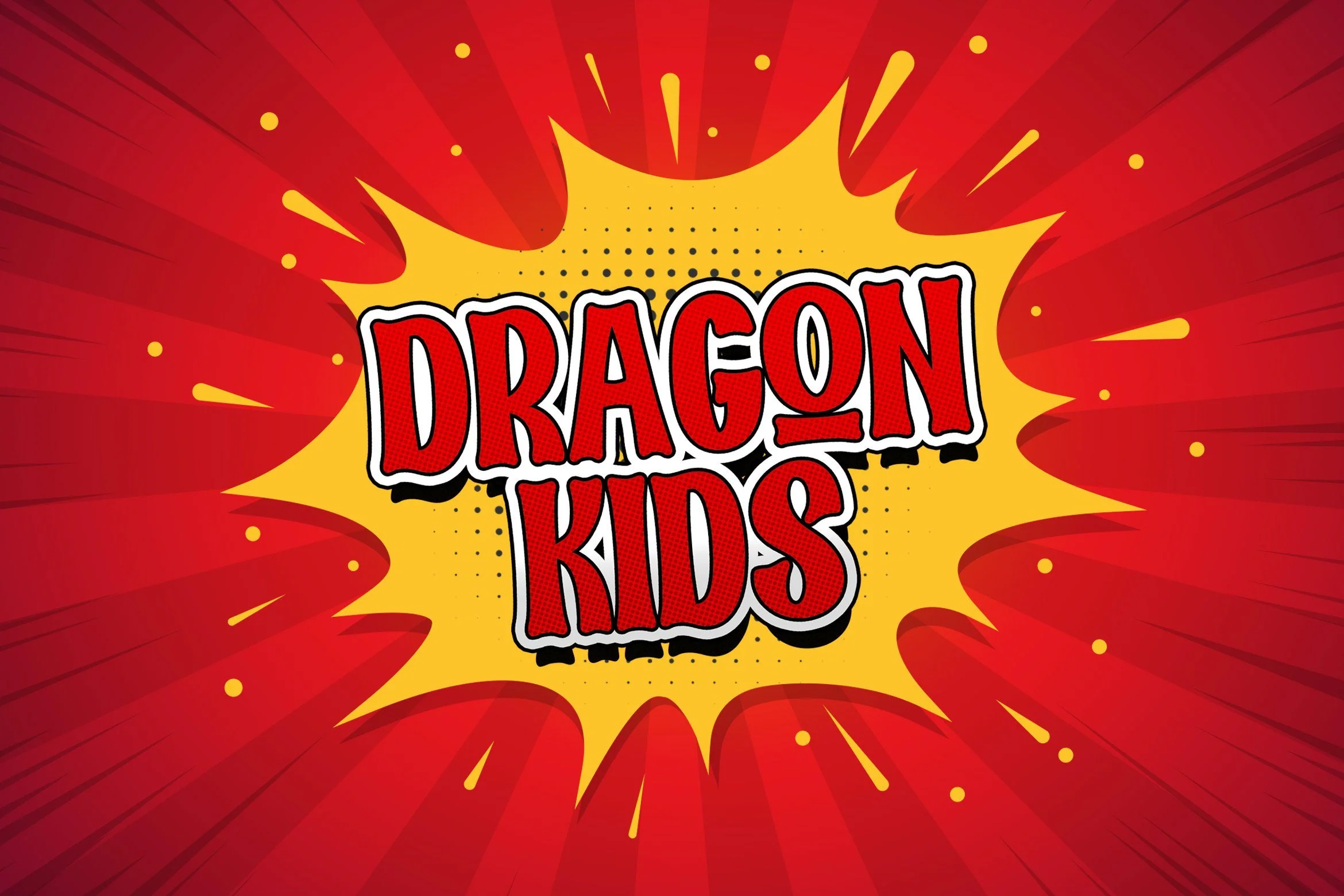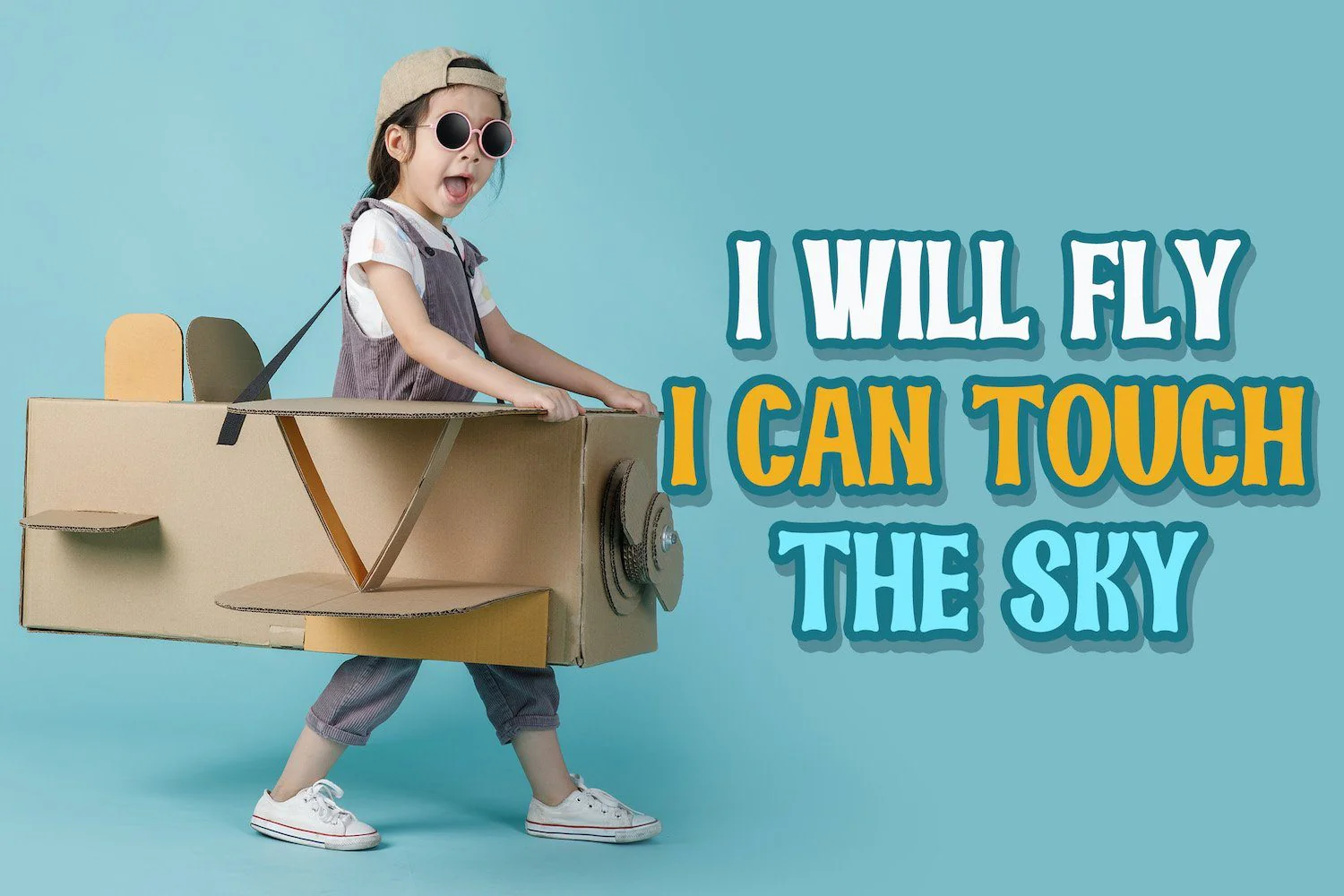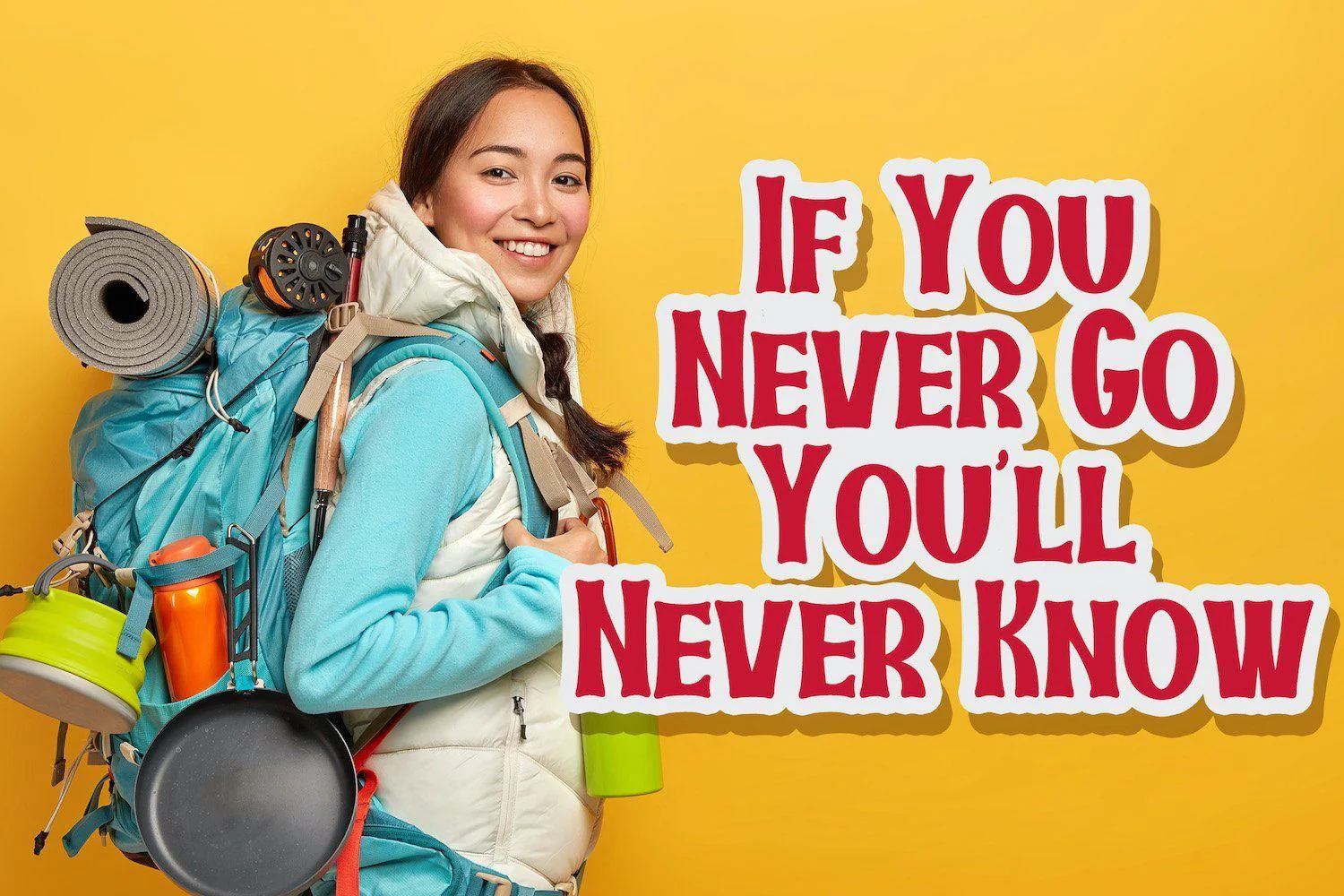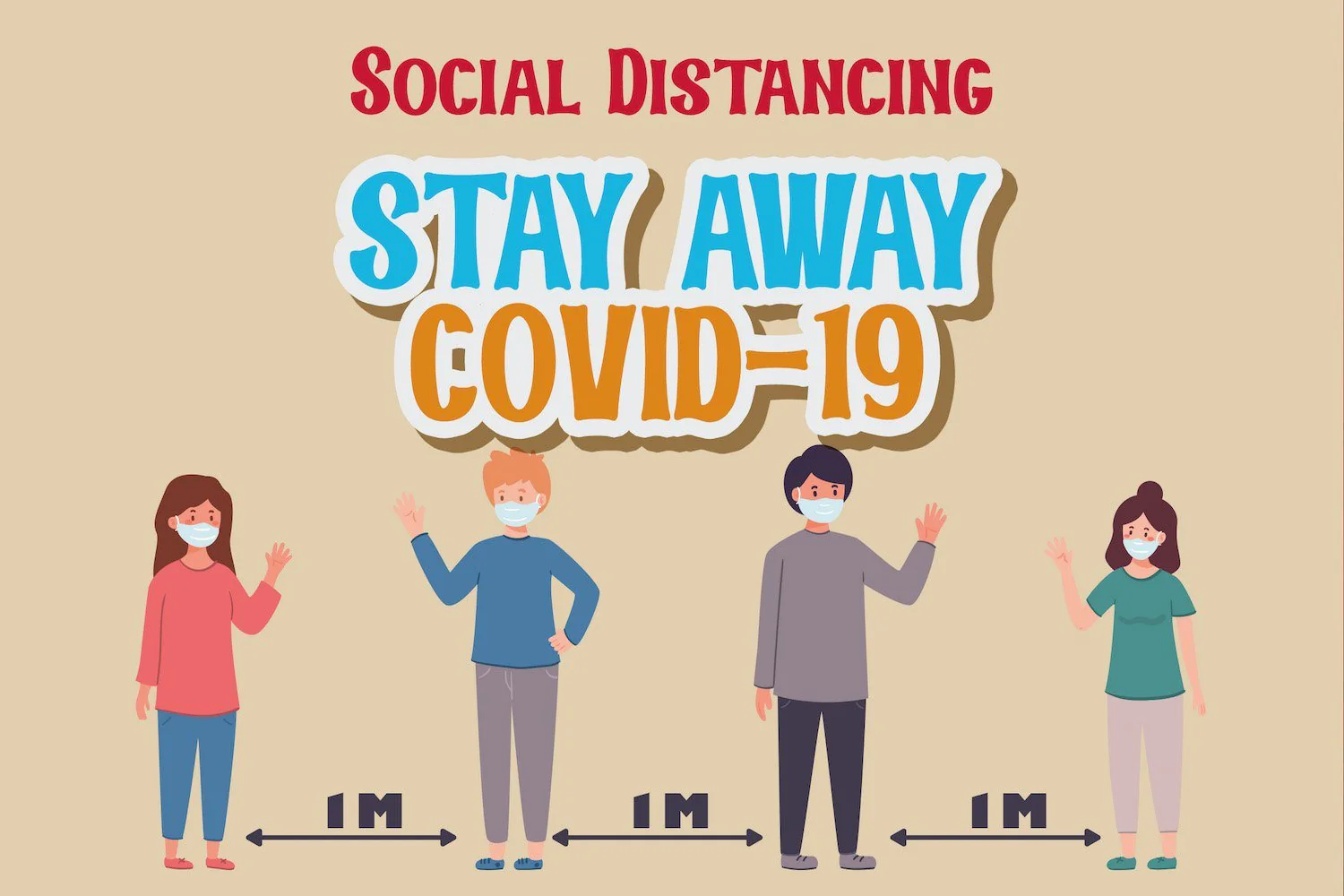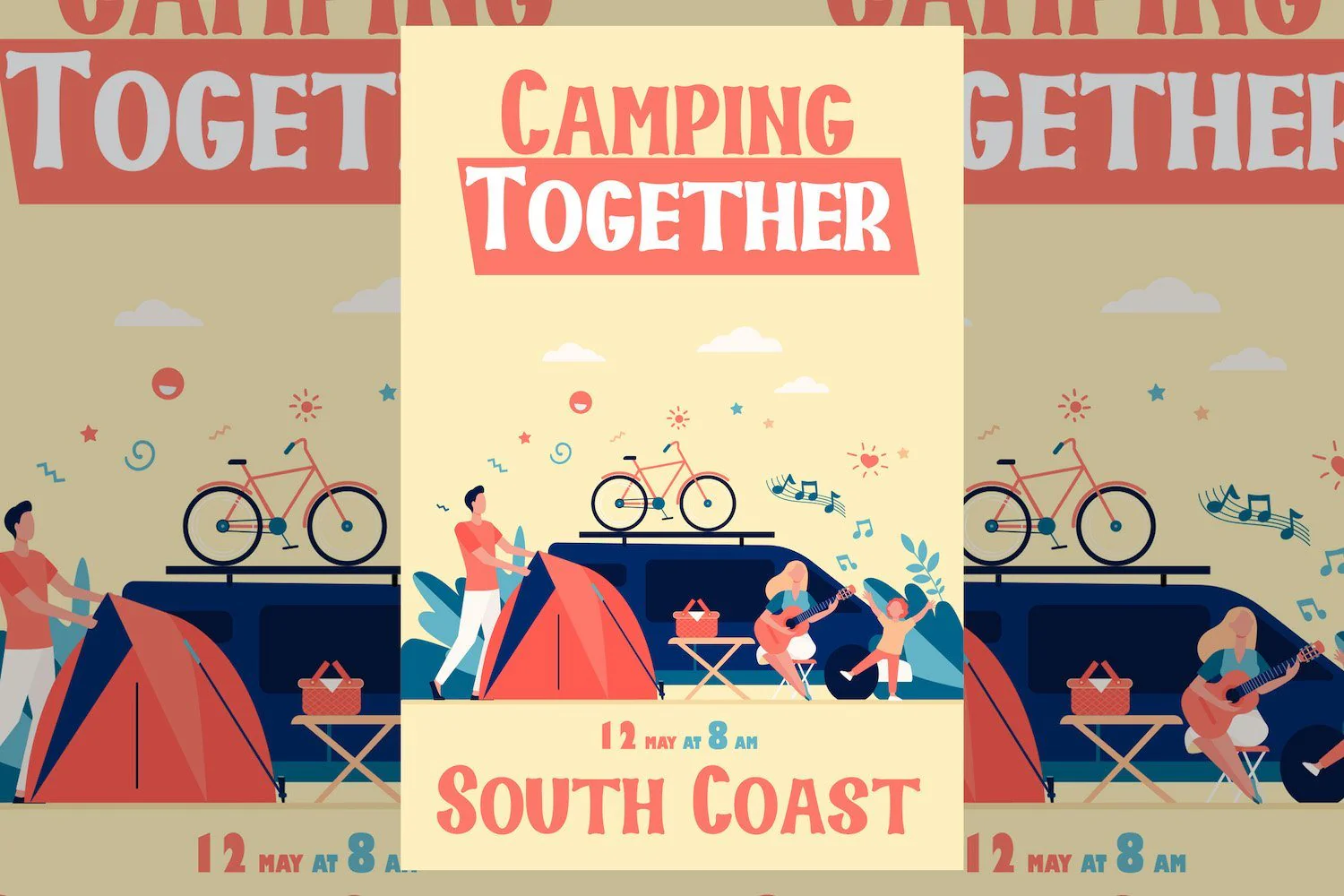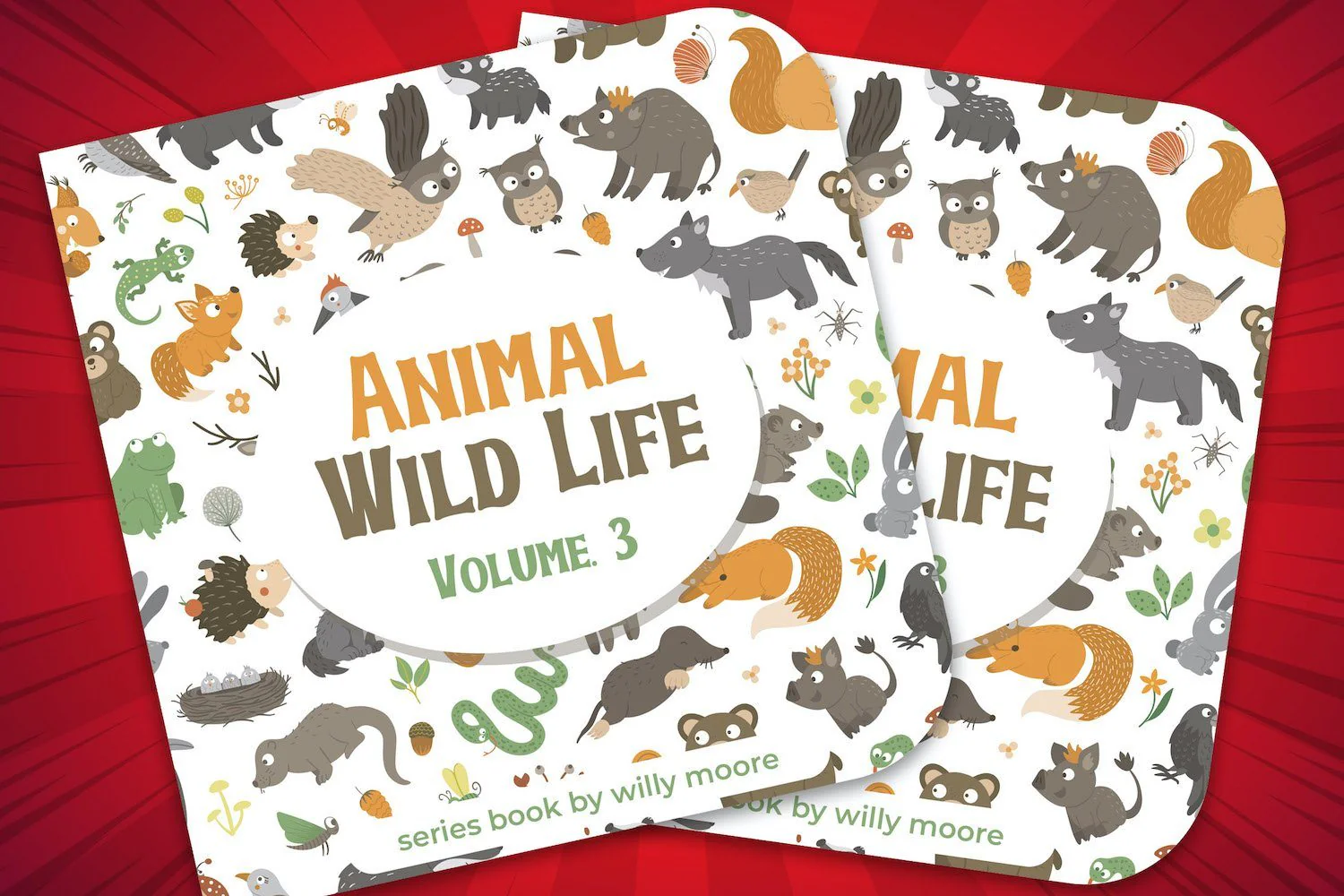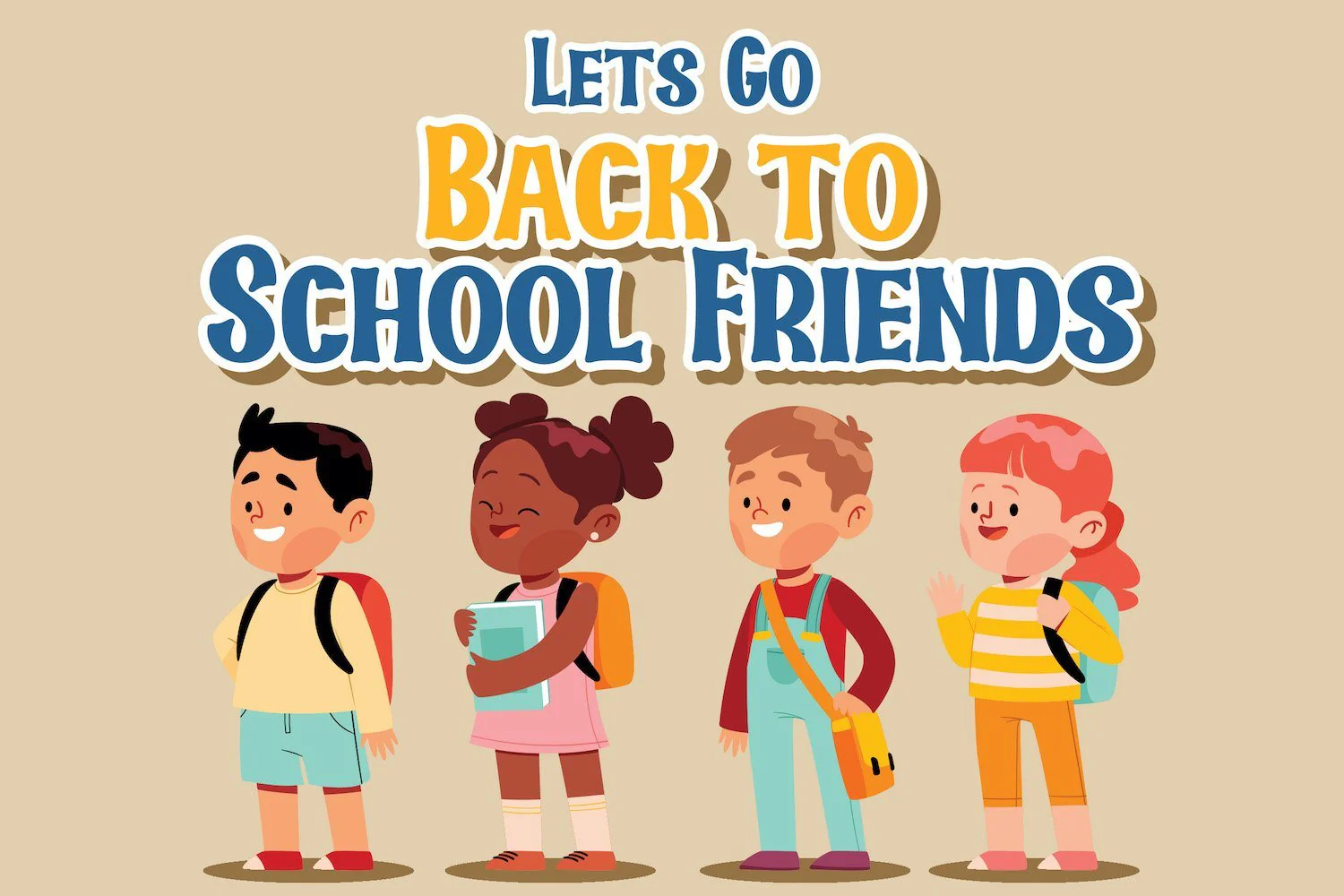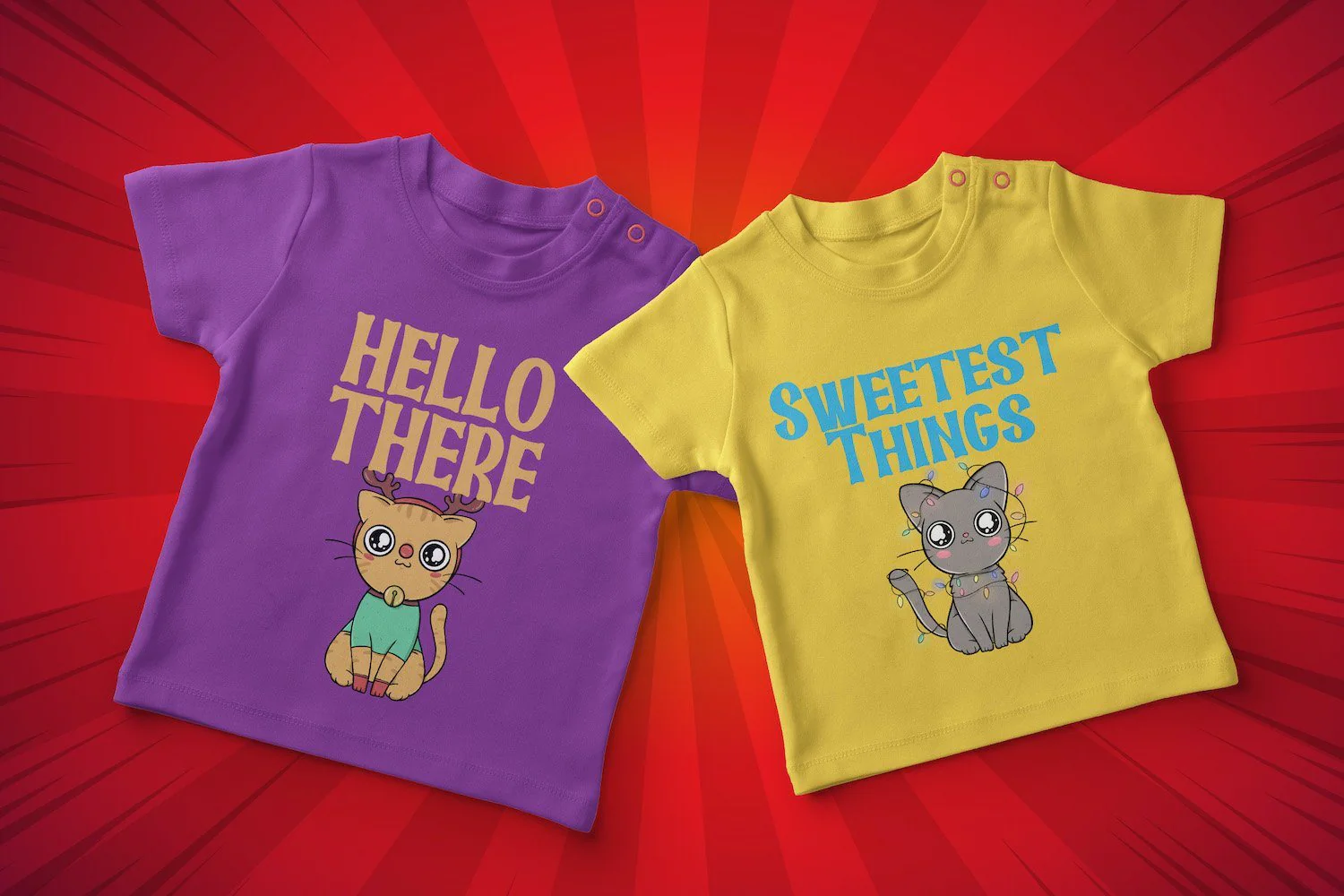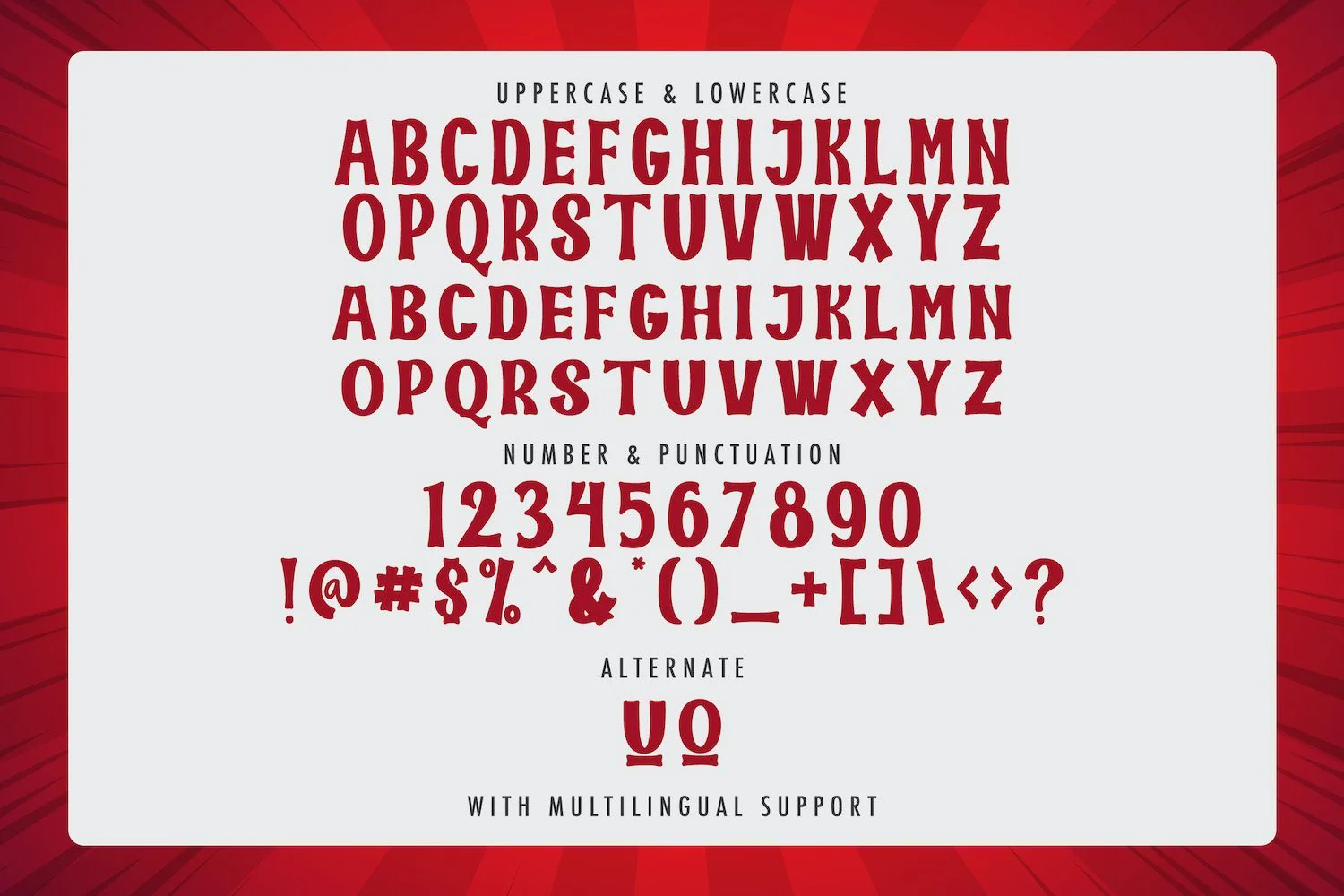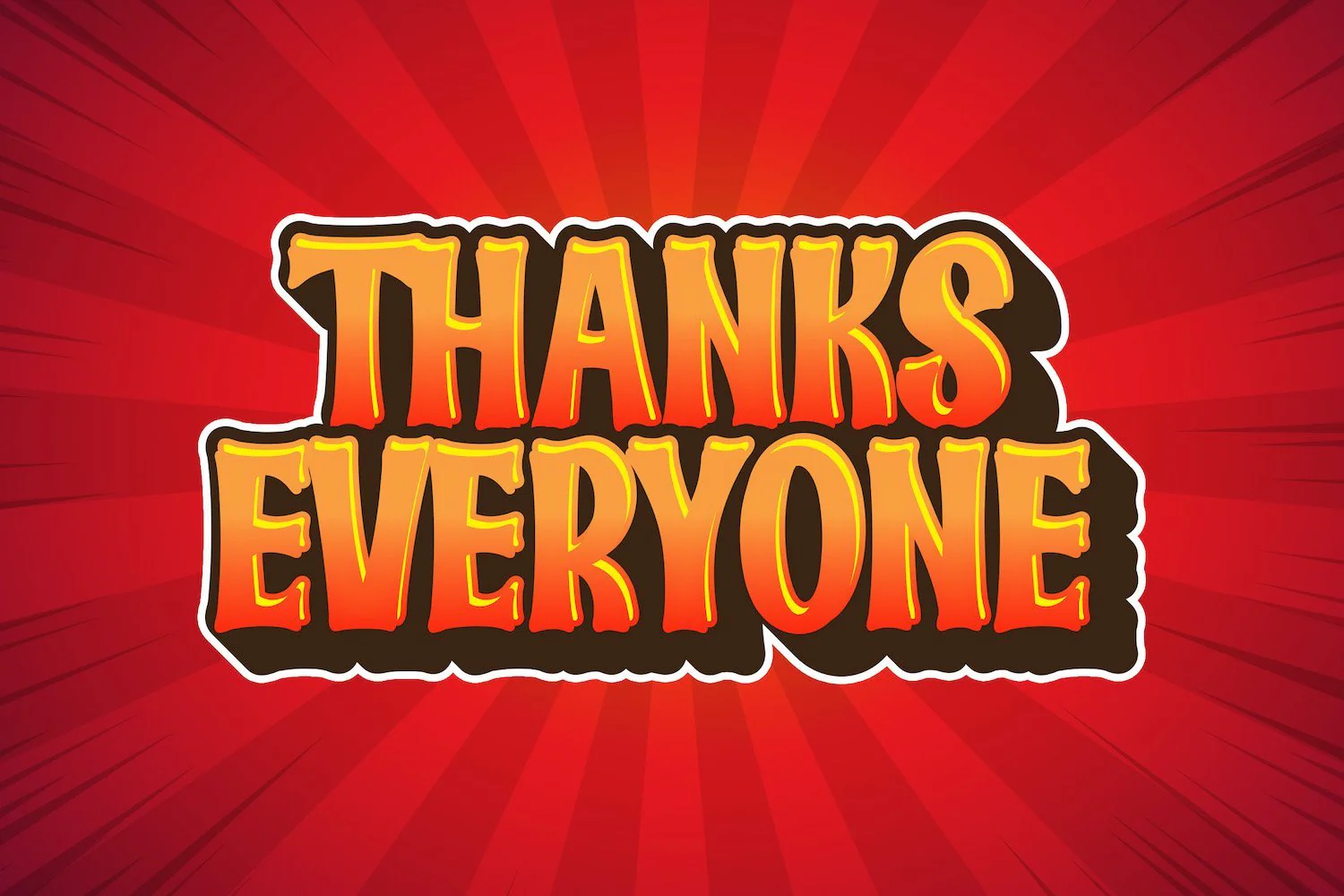
Dragon Kids - Playful Display Font
Introducing Dragon Kids - Playful Display Font
Dragon Kids is a fun display font. Playful and fresh, this font will be a hit for each of your children or school projects!
Introducing Dragon Kids - Playful Display Font
Dragon Kids is a fun display font. Playful and fresh, this font will be a hit for each of your children or school projects!